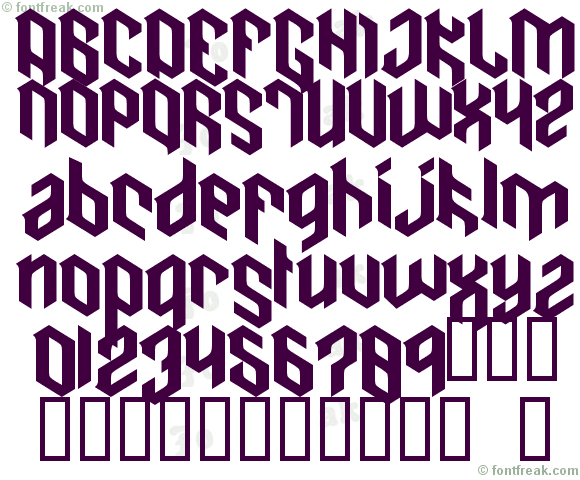
About Cain
The Cain font, designed by Alan Bauchop in 1998, is a captivating display font that falls into the decorative category. With its unique visual characteristics, Cain boasts a distinctive Gothic influence, featuring sharp angles and a bold presence that immediately draws attention. The stroke weight varies throughout the characters, providing a striking contrast that enhances its dramatic flair. The carefully crafted spacing between letters ensures readability while maintaining an artistic edge, making it a versatile choice for various design projects.
This font is particularly well-suited for a range of creative applications. It excels in crafting eye-catching movie posters that require a bold statement, giving titles and credits an impactful visual identity. Wedding invitations can also benefit from the elegance and sophistication of the Cain font, adding a touch of personal style to the special day. Additionally, restaurant menus that aim for a unique ambiance can use Cain to highlight specialty items, while promotional materials for events or concerts can leverage its striking design to capture attention. Graphic designers, small business owners, and content creators will find this font invaluable in enhancing their visual narratives.
What sets the Cain font apart is its ability to blend artistry with functionality. Its distinctive appearance not only captivates but also communicates a sense of originality. The free availability of this font makes it accessible for anyone looking to elevate their design projects without financial constraints. For those seeking a bold typeface that stands out, the Cain font offers a perfect blend of style and creativity. Don’t miss the chance to enhance your designs with this remarkable typeface—Cain font free download is available now, inviting you to explore its potential.